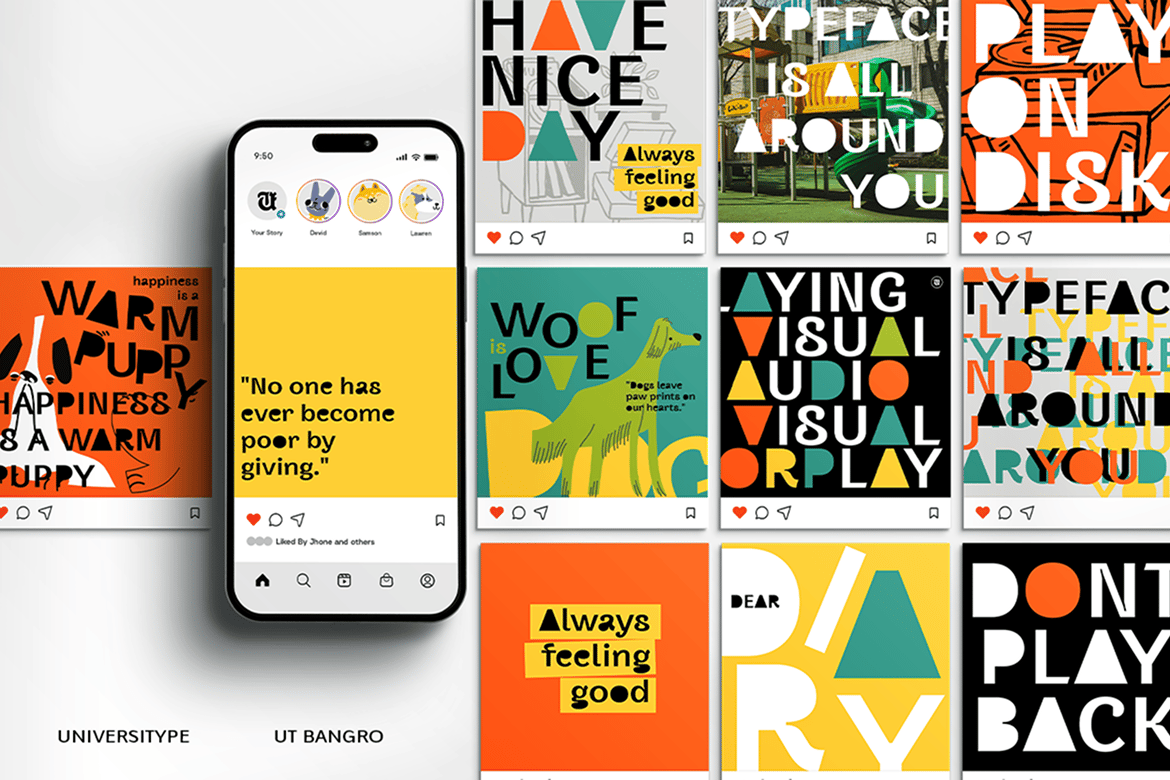
Bangro – A Display Sans Serif Font
Bangro – A Display Sans Serif Font is a versatile typeface ideal for various projects, including logos, branding, posters, blog headers, advertisements. The free version includes a full set of uppercase and lowercase letters, available in OTF format.